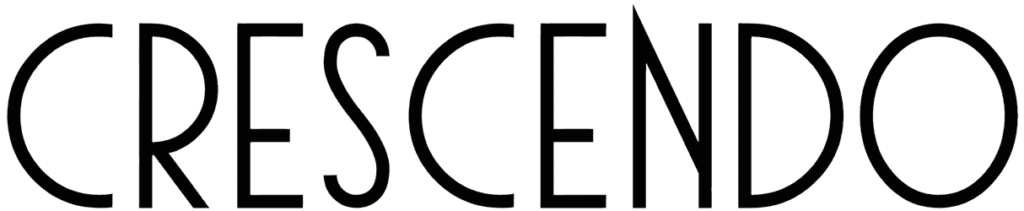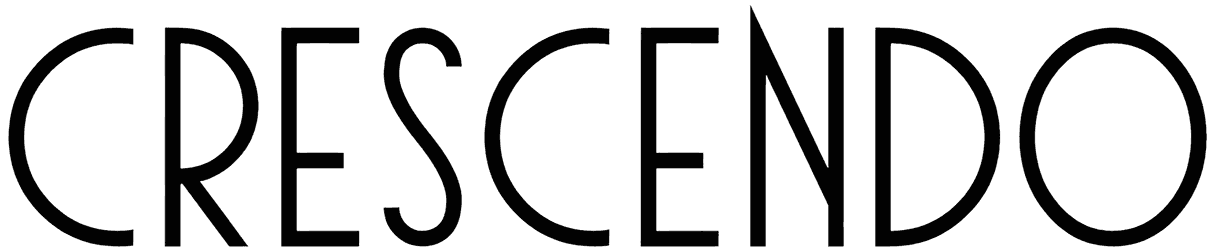
Crescendo Font
Do you like a vintage and minimal look for your next design? Offer you to try Crescendo. Even without lowercase letters, this Art Deco font can nicely display many designs, such as logos, posters, book covers, or a lot m…
Do you like a vintage and minimal look for your next design? Offer you to try Crescendo. Even without lowercase letters, this Art Deco font can nicely display many designs, such as logos, posters, book covers, or a lot more. Crescendo has a unique, modest face and can make your design classy and eye-catching.